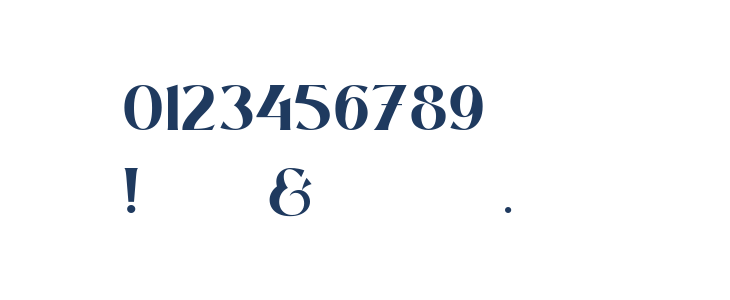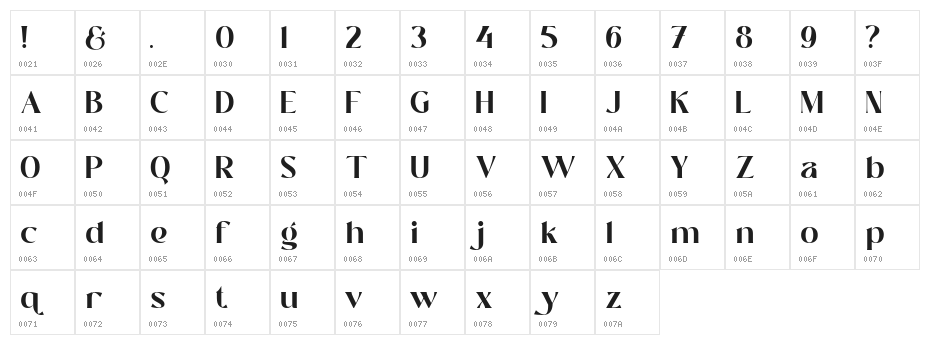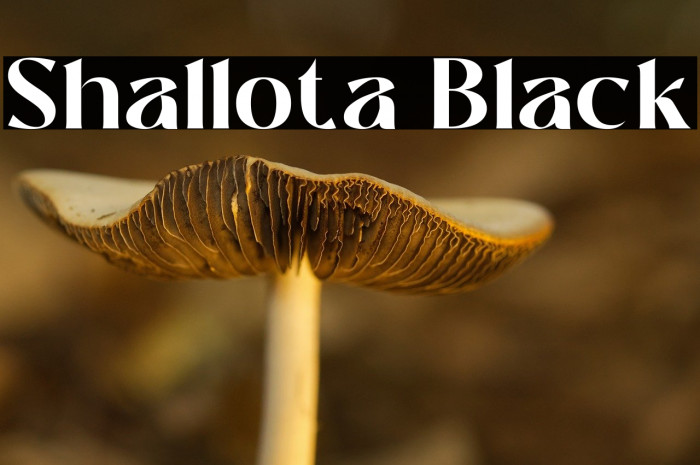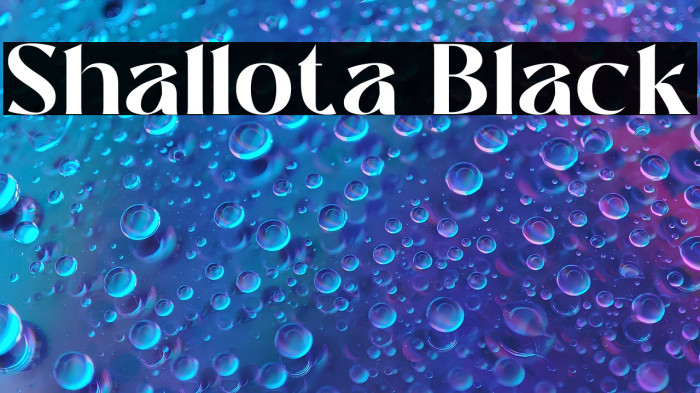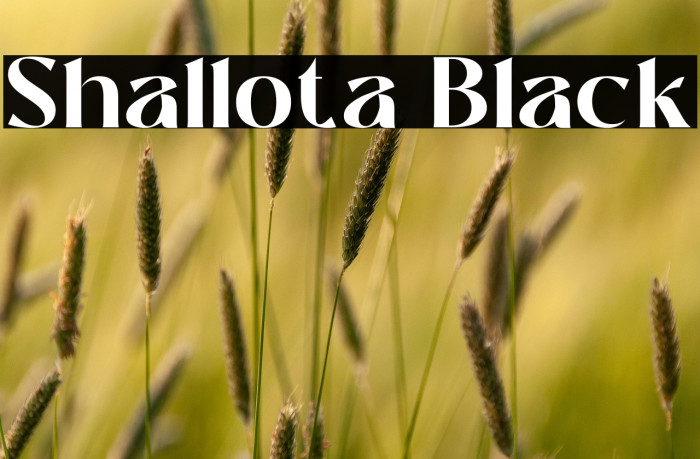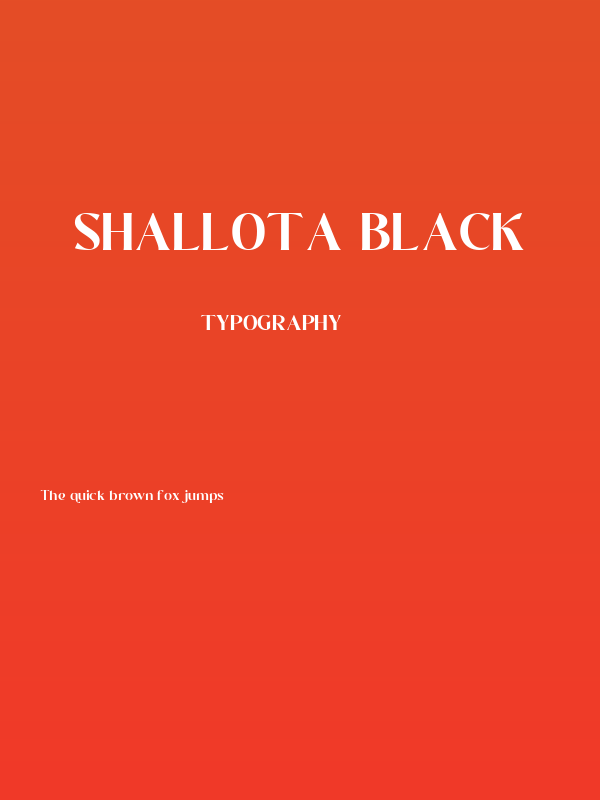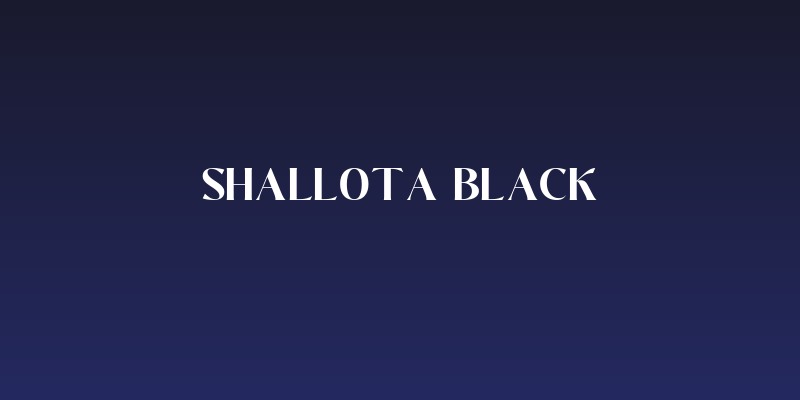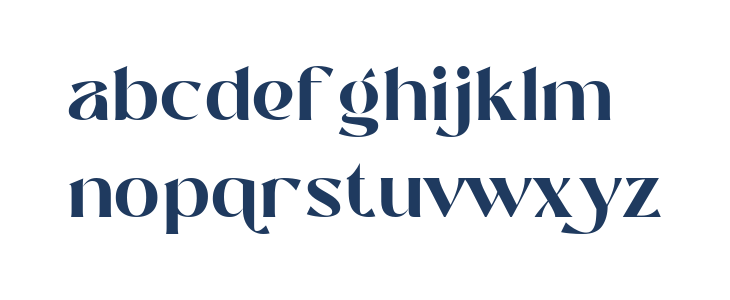
Shallota Black Font
Shallota Black Description
This font features a bold and striking design with a modern flair. The uppercase letters are characterized by sharp, angular serifs and a strong vertical emphasis, giving them a commanding presence. The lowercase letters maintain a similar style, with a slightly more rounded appearance that adds a touch of elegance. The numerals are consistent with the overall bold aesthetic, ensuring readability and impact. Special characters like the ampersand and exclamation mark are designed with unique, eye-catching details that enhance the font's visual appeal. The overall design is both sophisticated and assertive, making it suitable for a variety of creative applications.